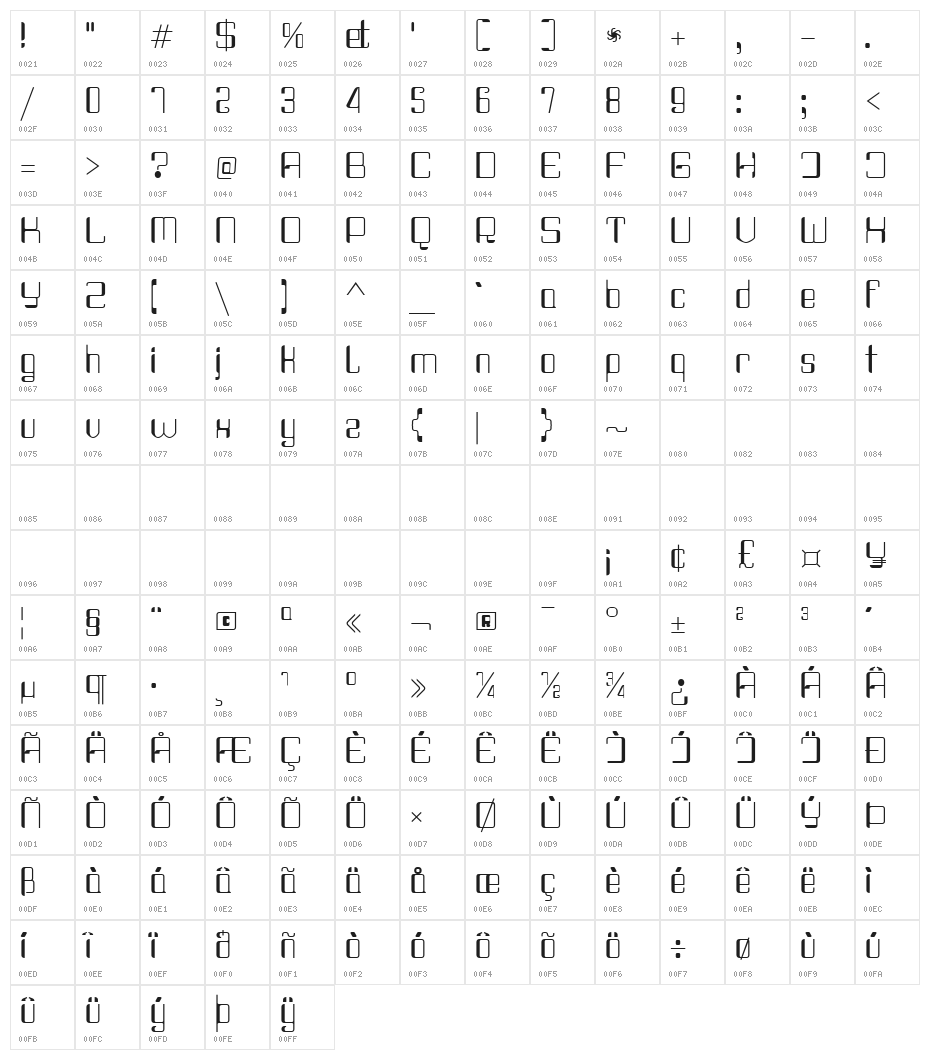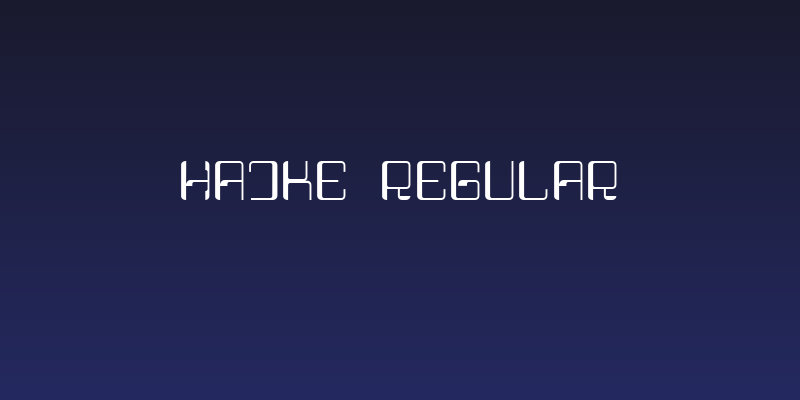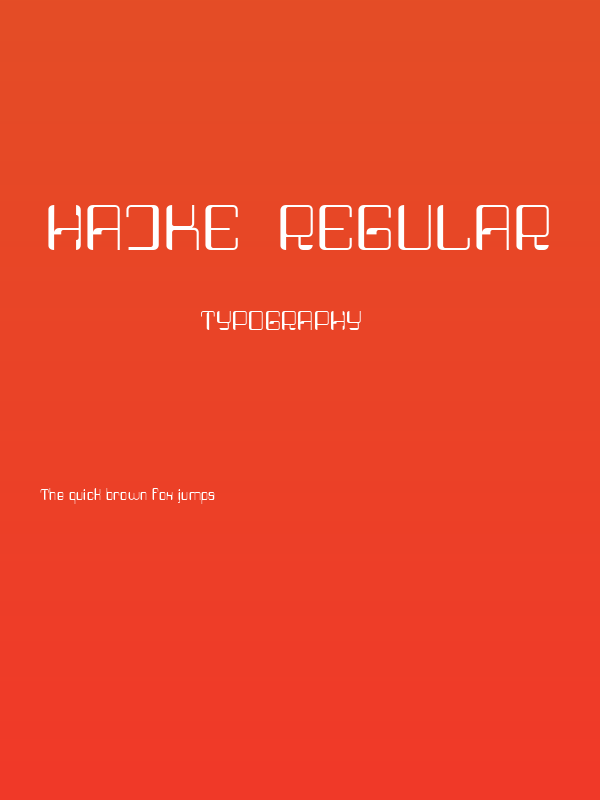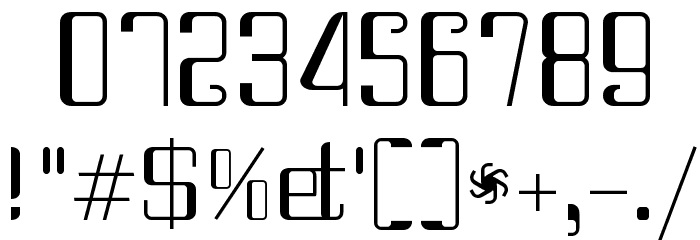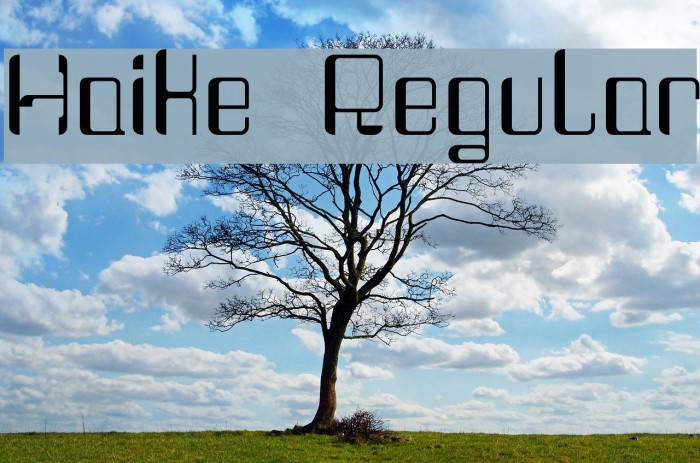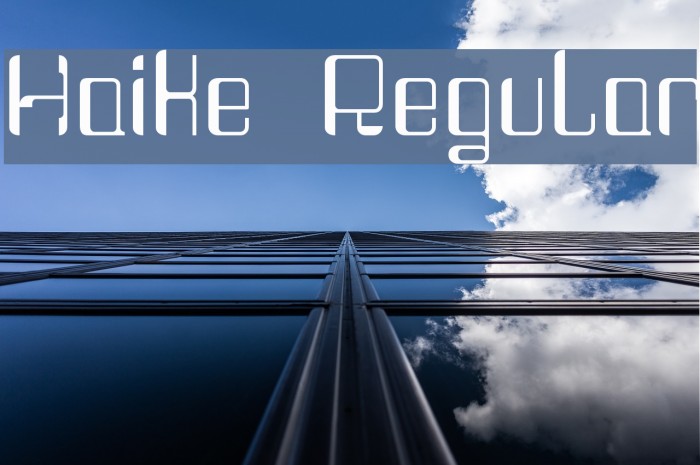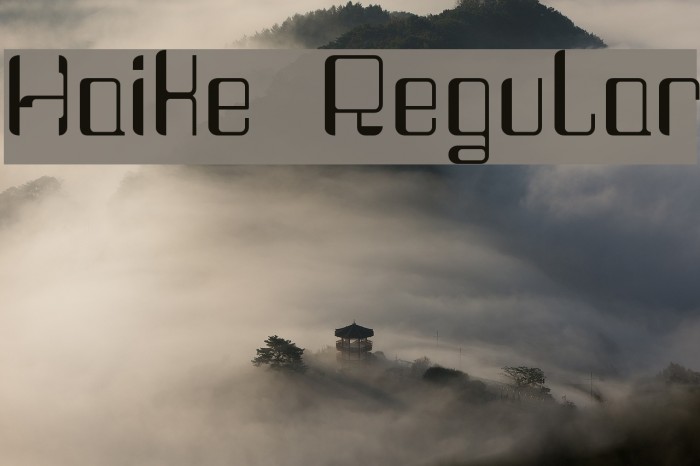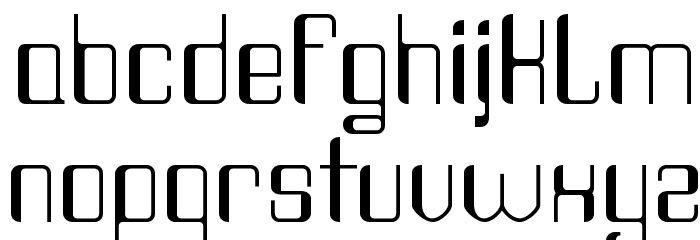
Haike Regular Font
Haike Regular Description
This font features a modern and geometric design with a unique blend of rounded and angular elements. The uppercase letters are bold and structured, with a distinct futuristic appeal. The lowercase letters maintain a consistent style, offering a smooth transition between characters. Numbers are clear and legible, with a slightly condensed appearance that complements the overall design. Special characters are creatively integrated, maintaining the font's cohesive look. This font's clean lines and balanced proportions make it suitable for a variety of design applications.
| Proposed Projects | Ideal for tech branding, modern advertising, digital interfaces, and futuristic-themed projects. |